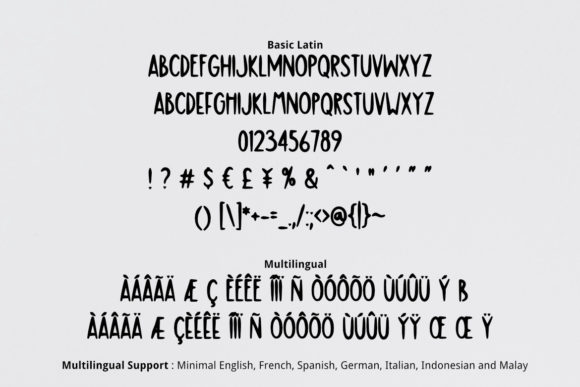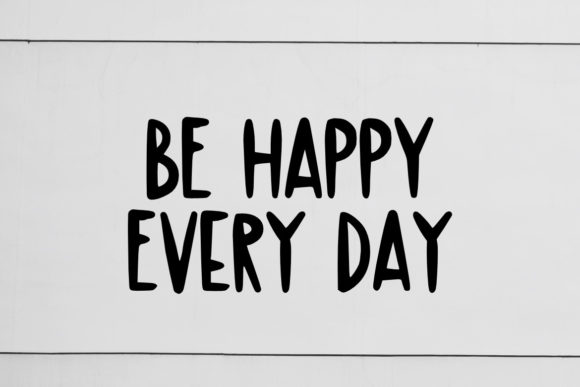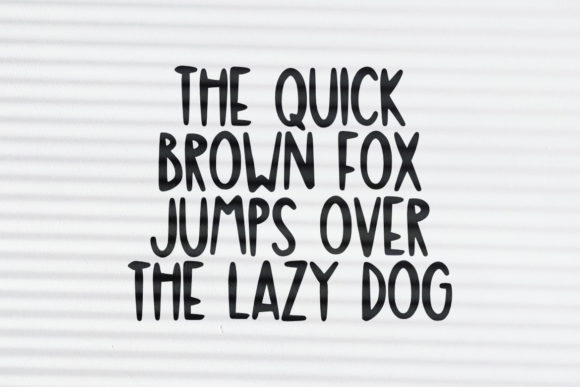
Introduction to Rekan Display Font Font
Remember that moment when you’re brainstorming ideas for your next creative project and you stumble upon the perfect font? The one that elevates your design and makes it stand out from the crowd? That’s what we’re about to introduce you to – the Rekan Display Font Font, a game-changer for designers and creatives alike.
Whether you’re working on a logo, title, or quote, this simple yet modern display font is the perfect design resource to take your project to the next level. With its transparent background and high-quality design, the Rekan Display Font Font is a versatile tool that’s sure to impress. And the best part? It’s available for free download, making it an accessible and valuable addition to your design toolkit.
So, if you’re looking to give your creative project a boost, look no further than the Rekan Display Font Font. With its sleek and modern design, it’s the perfect choice for designers who want to create high-quality, visually appealing work that stands out from the crowd.
Key Features of Rekan Display Font Font
- Rekan Display Font Font offers a transparent background, allowing for seamless integration into various design elements.
- Features a large character set, making it suitable for a variety of creative projects, including logos, typography, and more.
- Supports high-resolution designs, with a recommended resolution of 300 DPI for optimal display quality.
- Unique, modern design aesthetic that sets it apart from other display fonts, making it an ideal choice for designers seeking a distinctive look.
Honest Review: Rekan Display Font Font
I recently stumbled upon the Rekan Display Font Font, and I must say it’s a great design resource for any creative project. The high quality of the font is immediately apparent, and I love how versatile it is.
- ✨ The transparent background makes it easy to use on any design project.
- ✨ The font is highly customizable, allowing for a wide range of creative possibilities.
- ⚠️ The font may not be suitable for very small text sizes due to its bold and striking design.
- ⚠️ Some users may find the font too attention-grabbing, which may not be suitable for all design projects.
Overall, I’m really impressed with the Rekan Display Font Font. It’s a great addition to any designer’s toolkit, and I would highly recommend it for any creative project that requires a high-quality, customizable font. With its transparent background and free download option, it’s definitely a design resource worth exploring.
The Rekan Display Font Font is ideal for designs that require a clean and modern look. Some common use cases include:
- Headings and titles
- Logos and branding
- Brochures and flyers